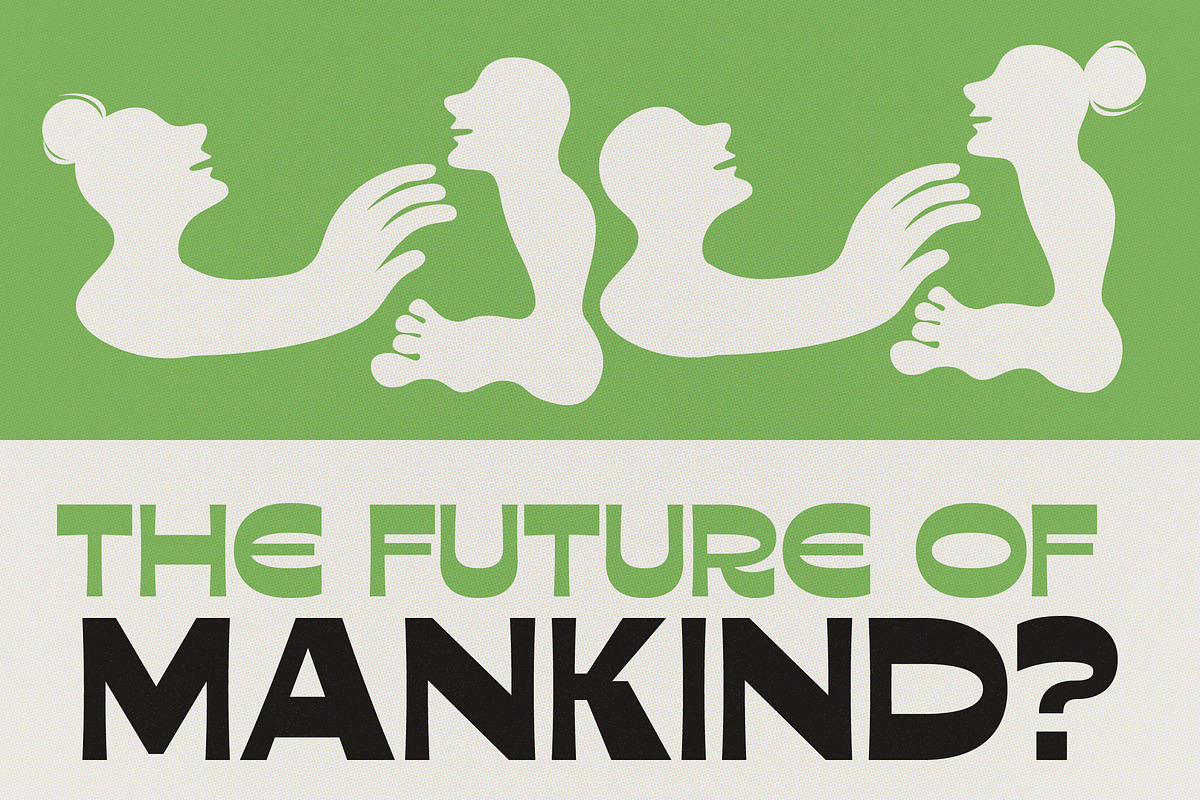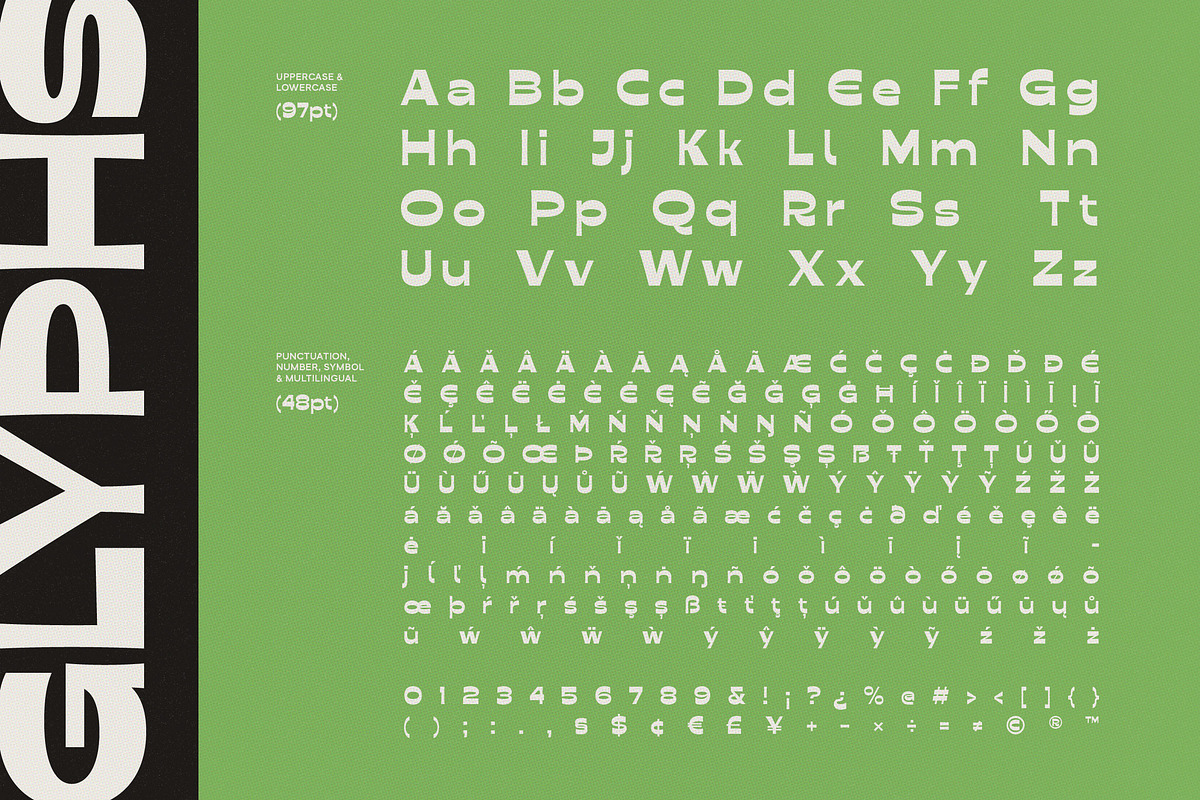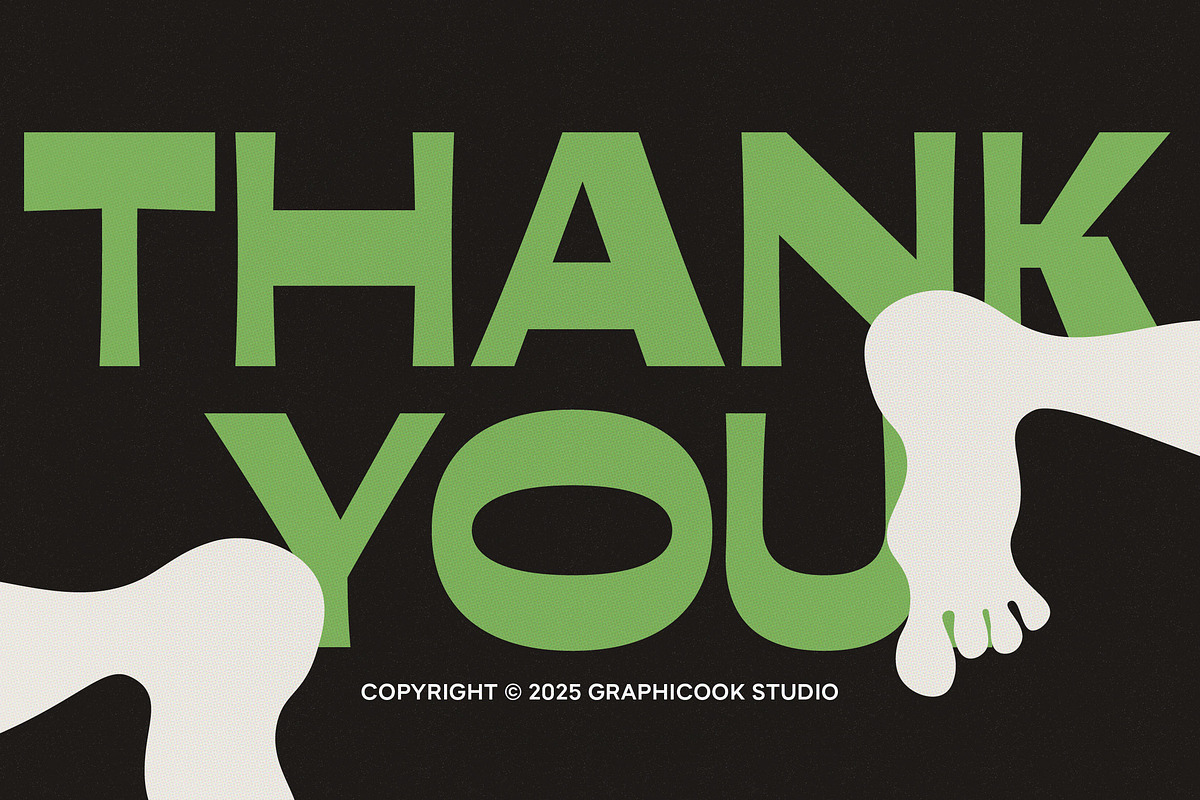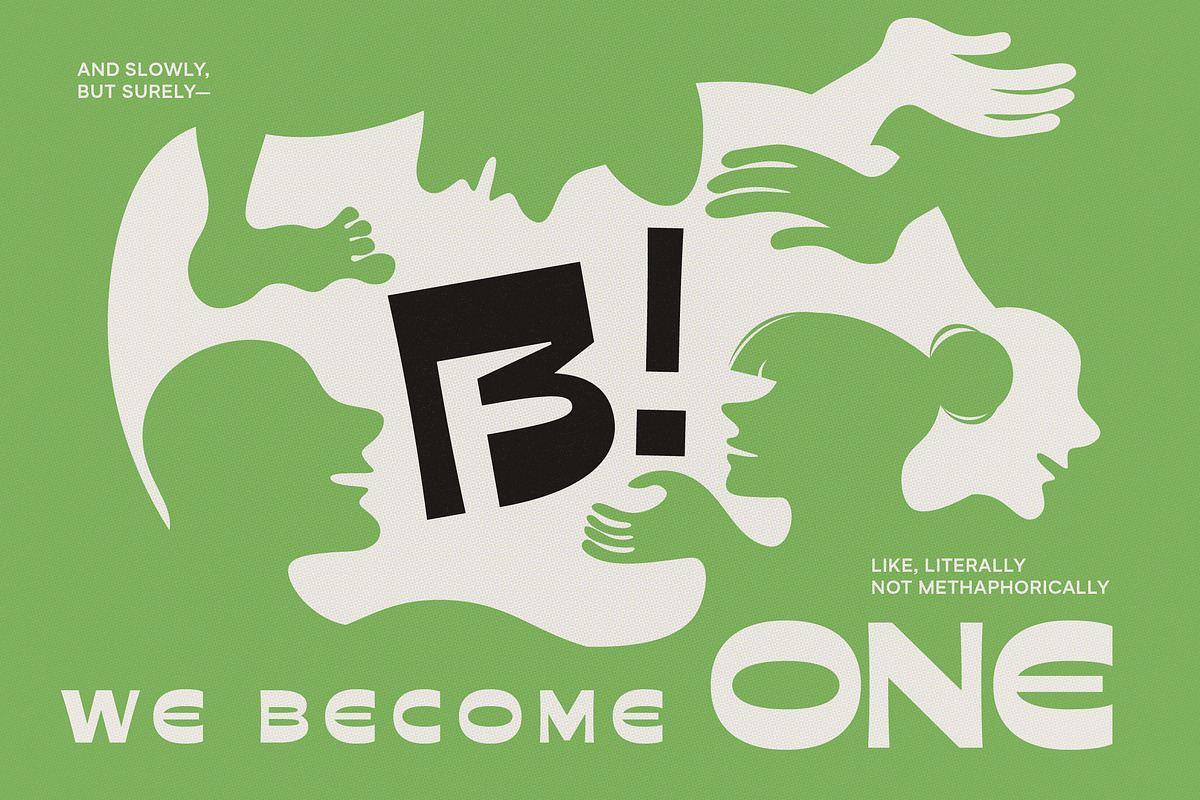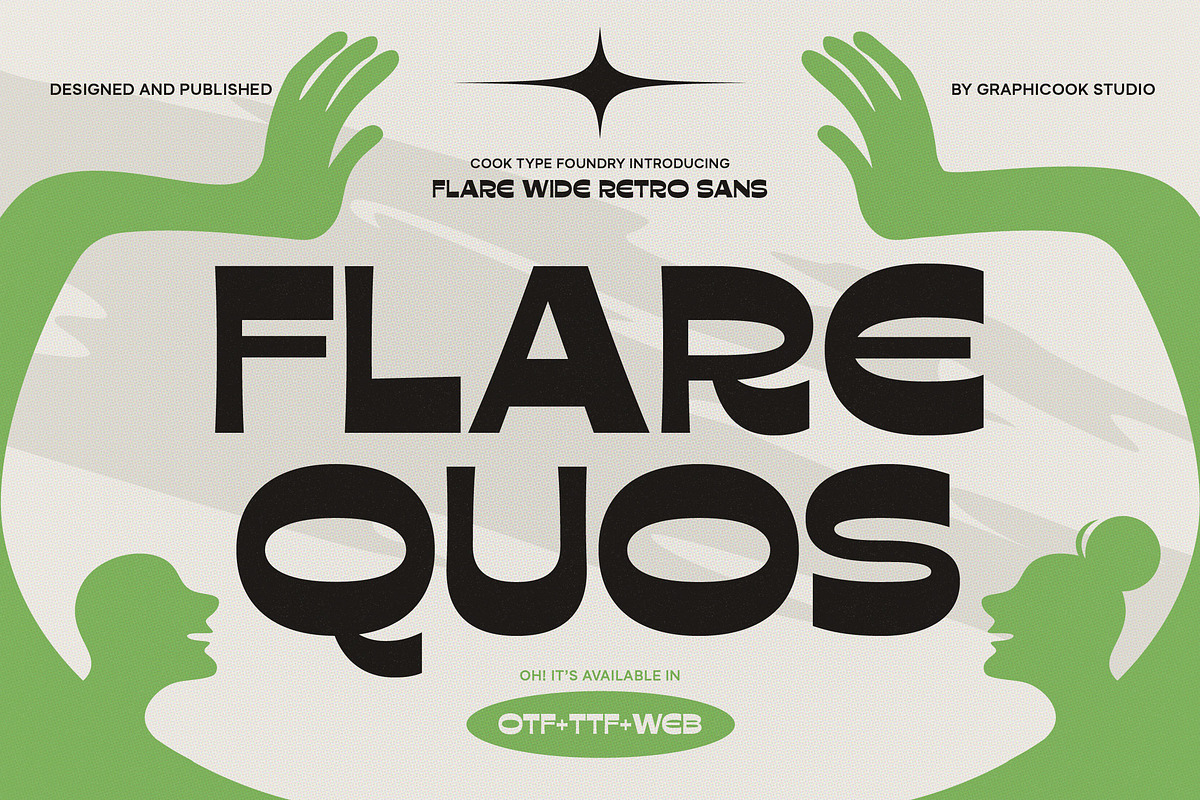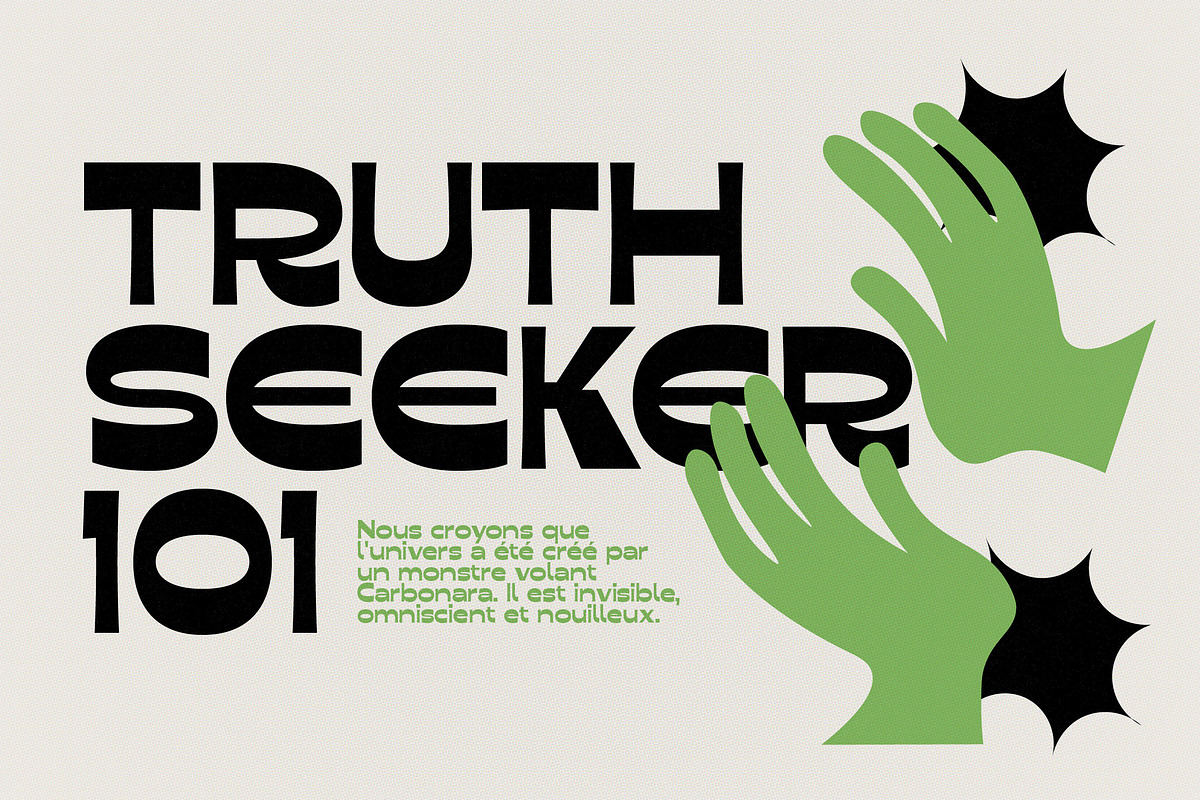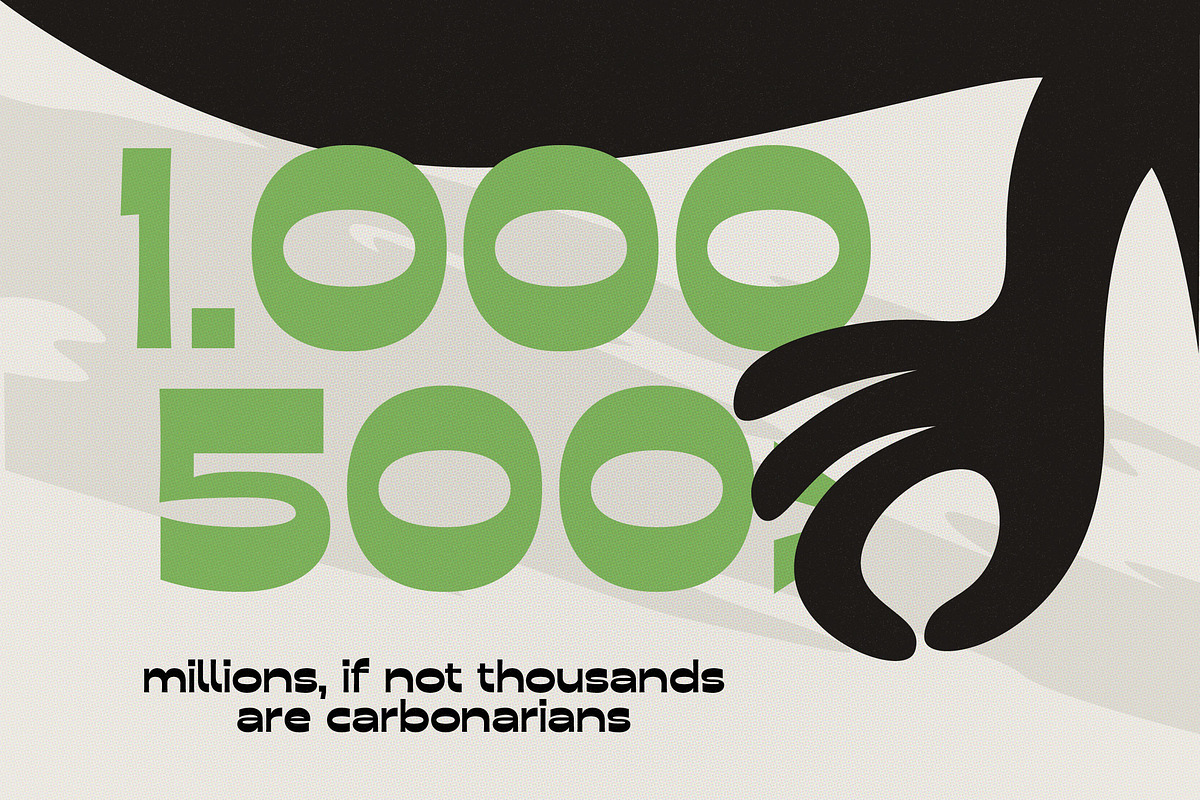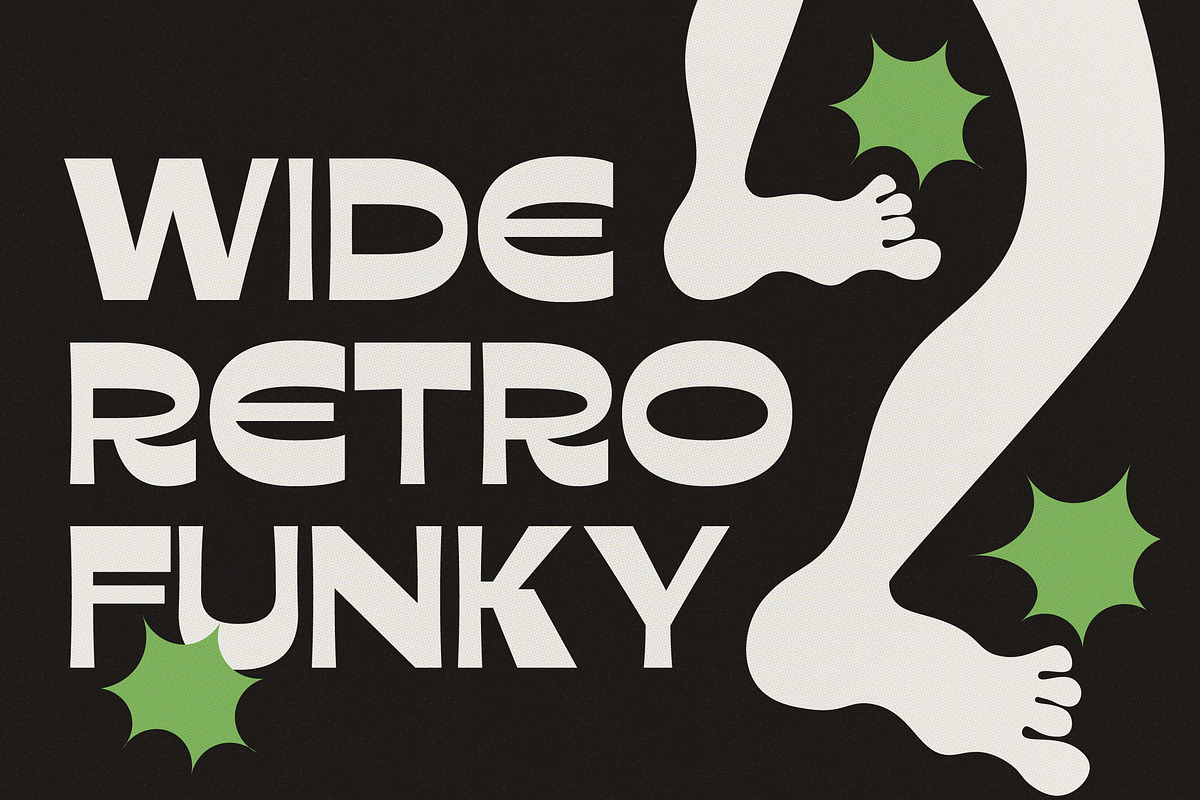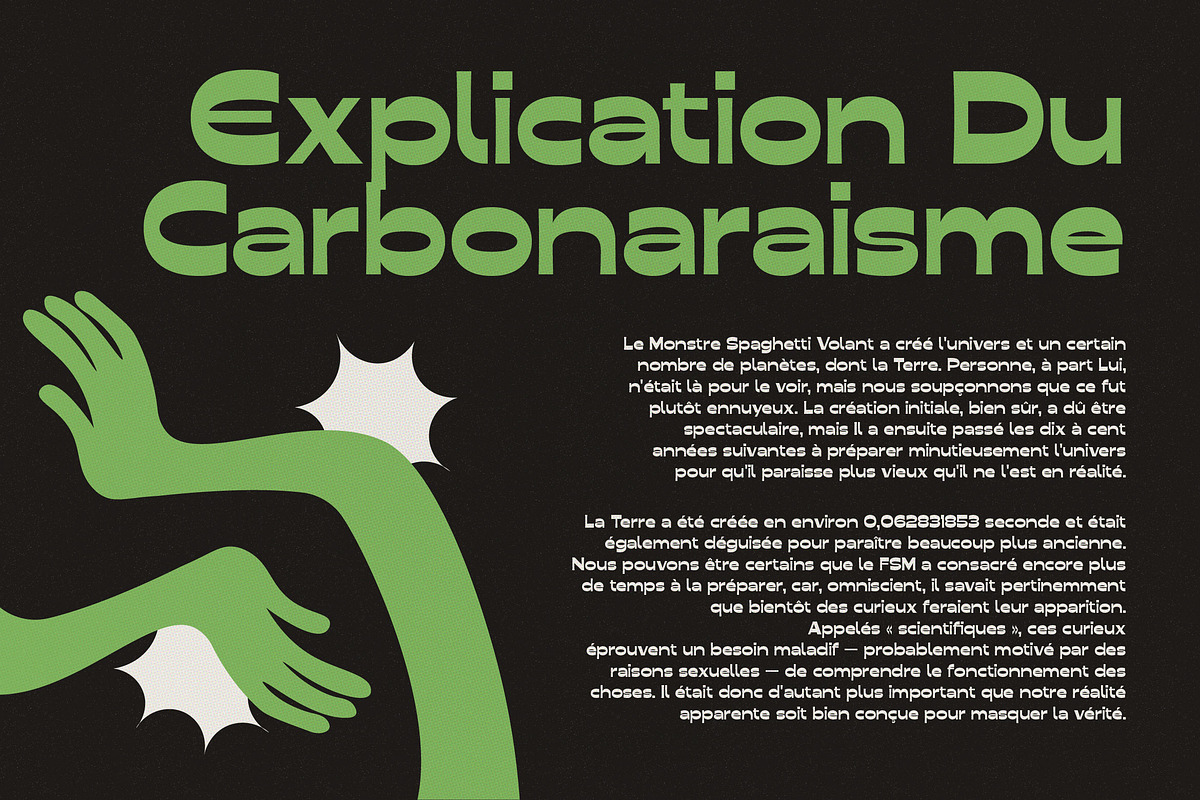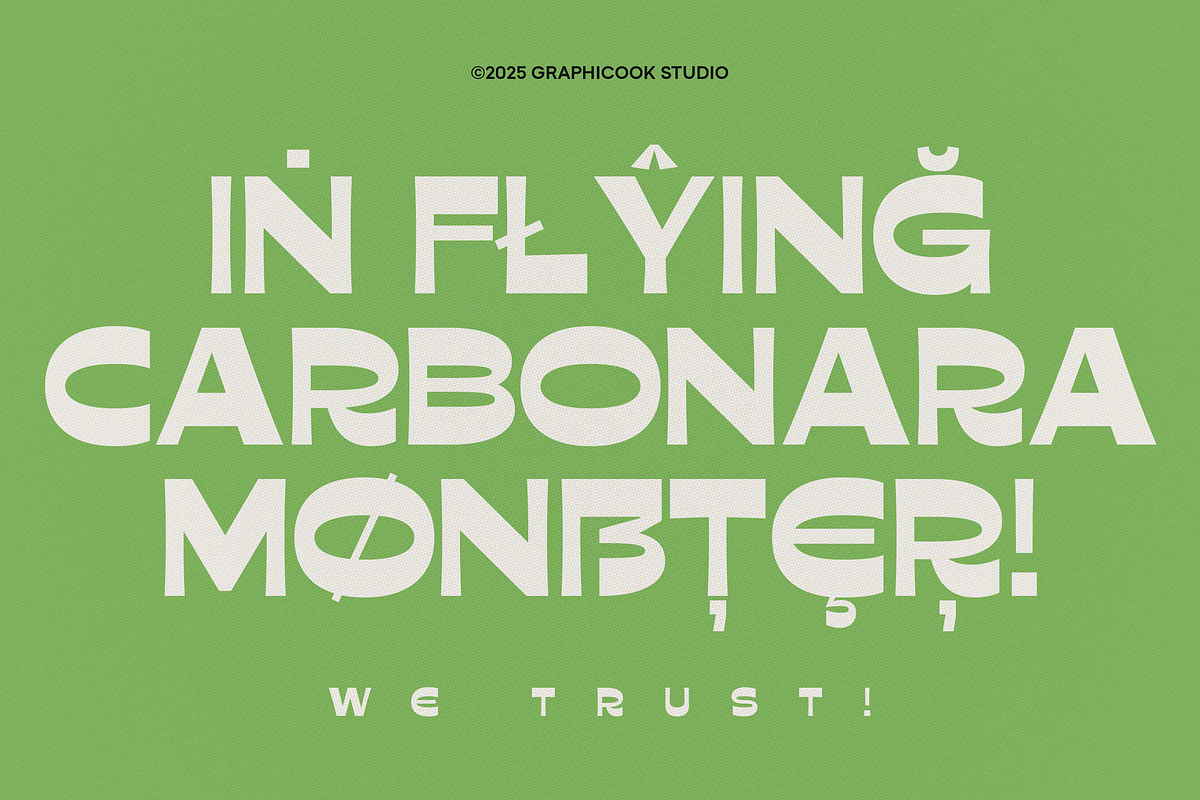
Flarequos
Flarequos is an experimental font with wide, uniquely shaped letters and a retro funky vibe. Ideal for headlines and designs that channel energetic, playful, and vintage moods.
Flarequos is perfect for headlines, logotypes, magazines, packaging, quotes, movies, games, cover albums, book covers, and flyers, it's a perfect solution for creating eye-catching designs that stand out in any context.